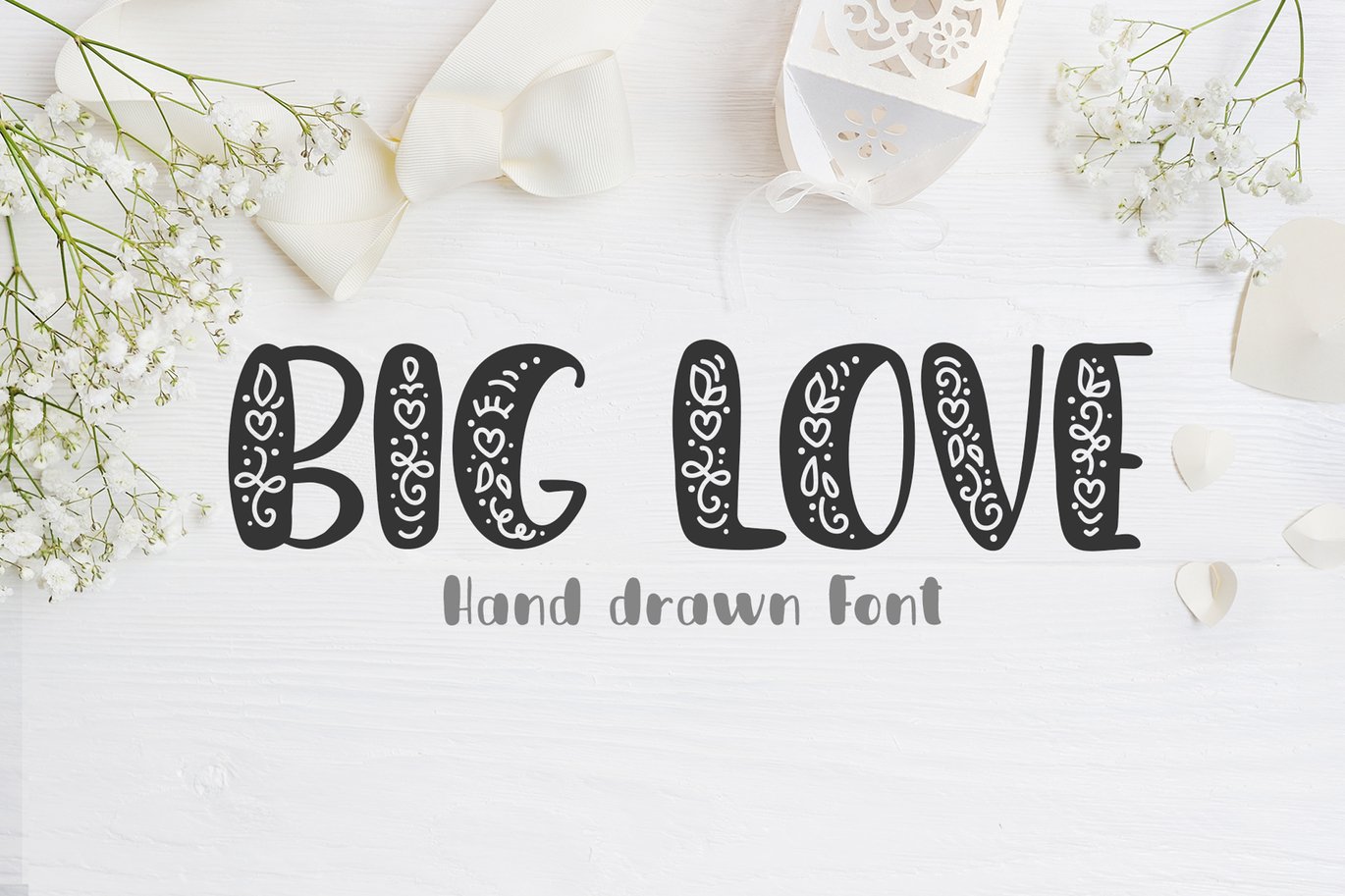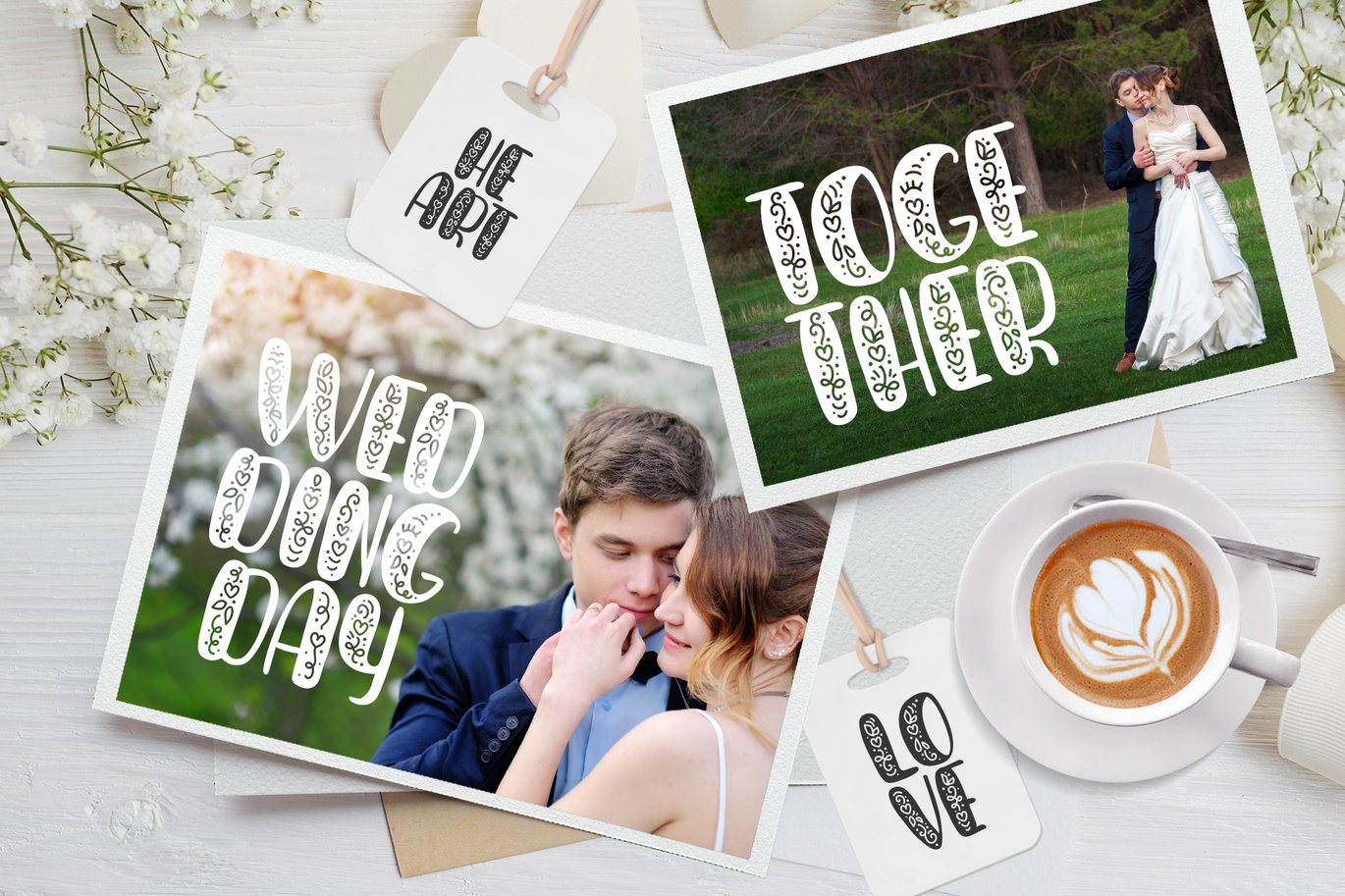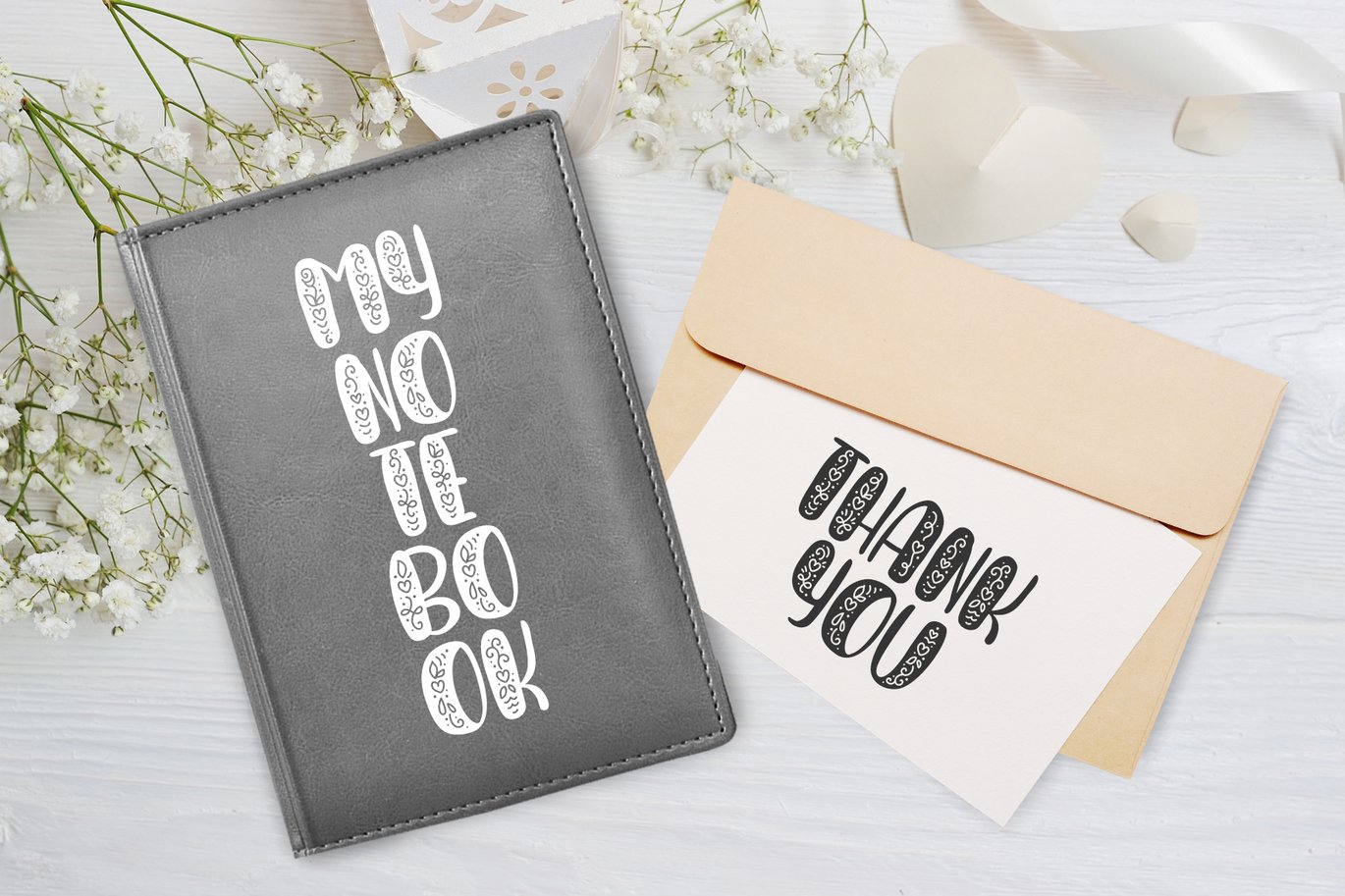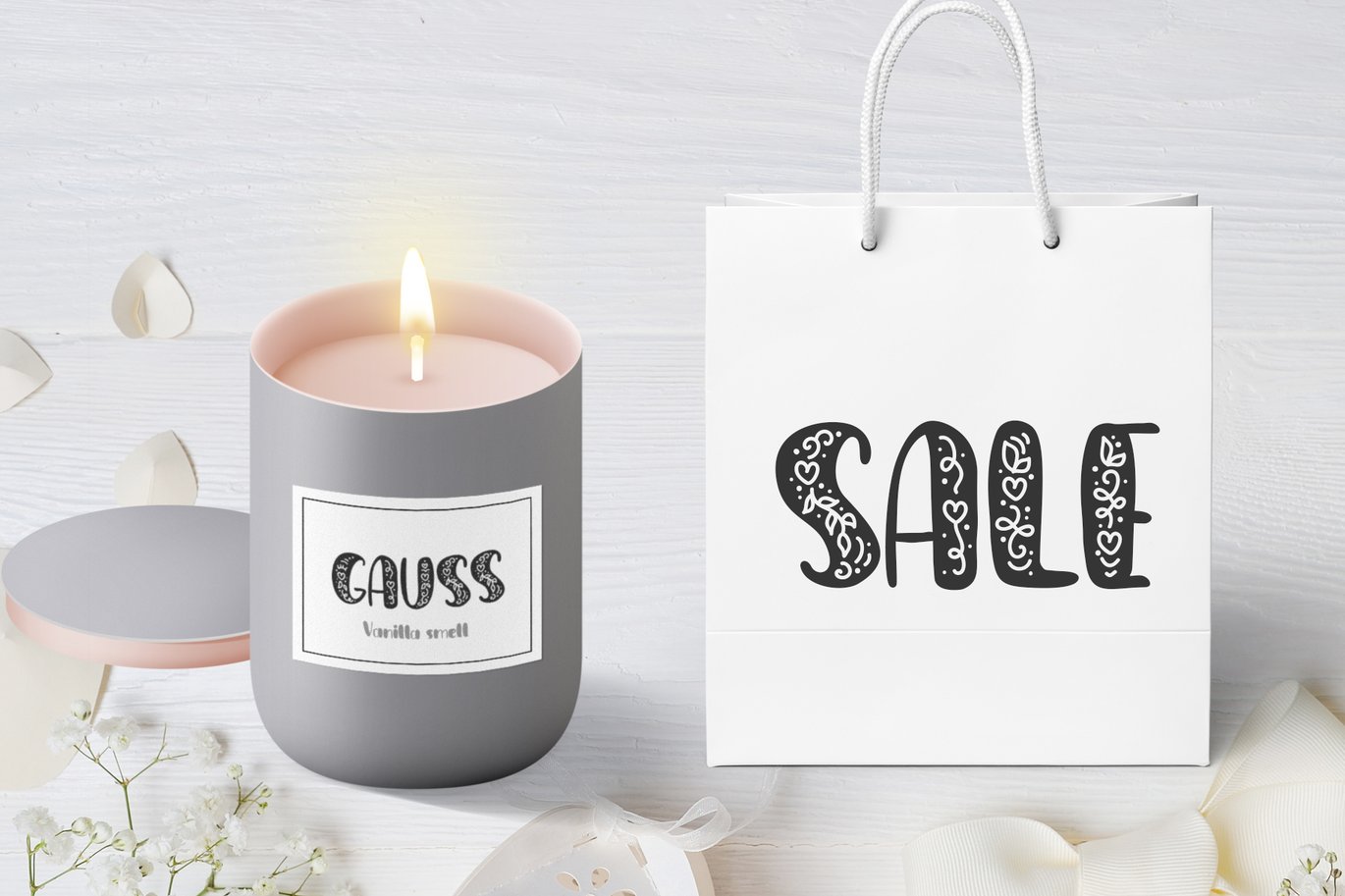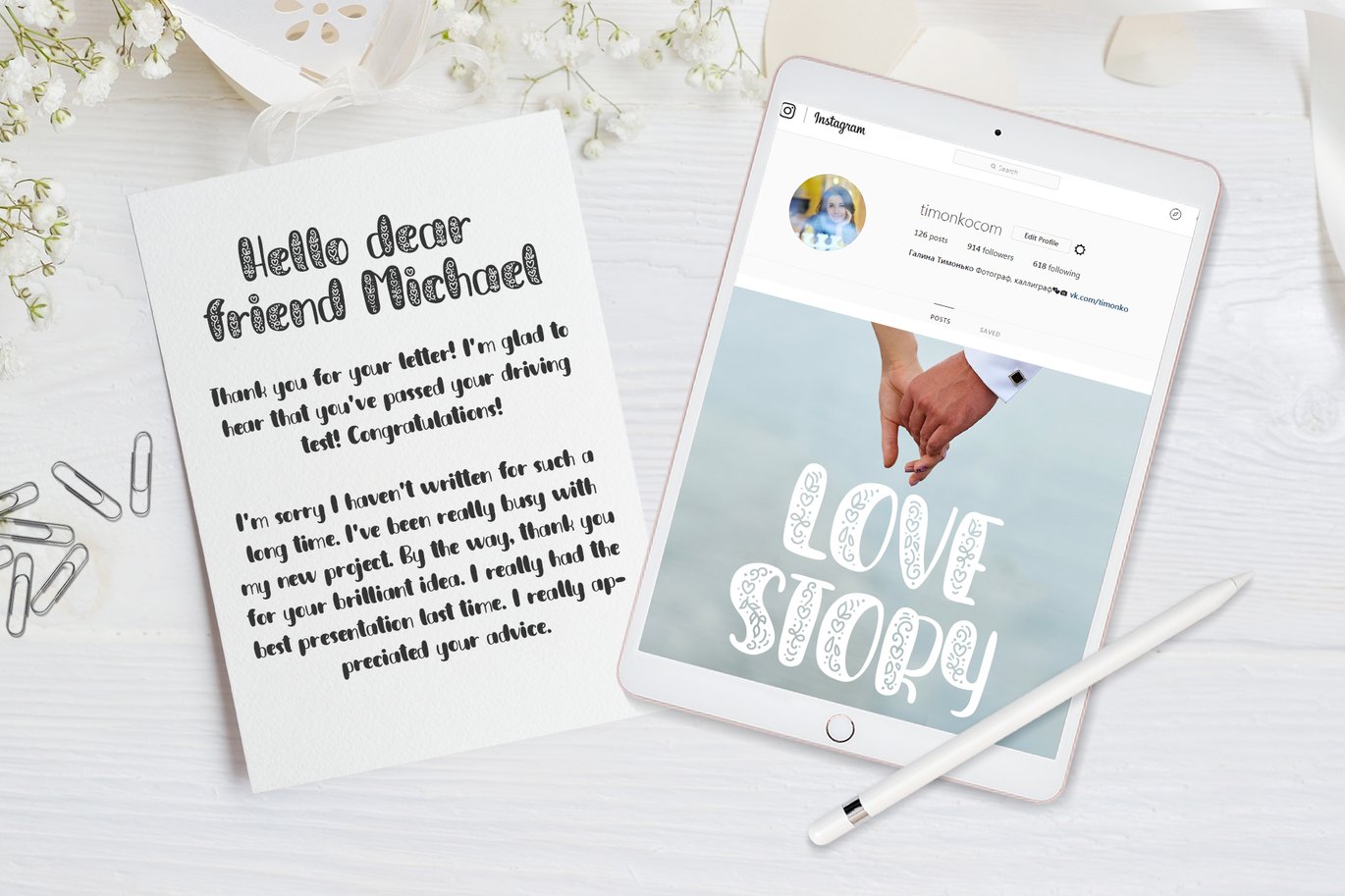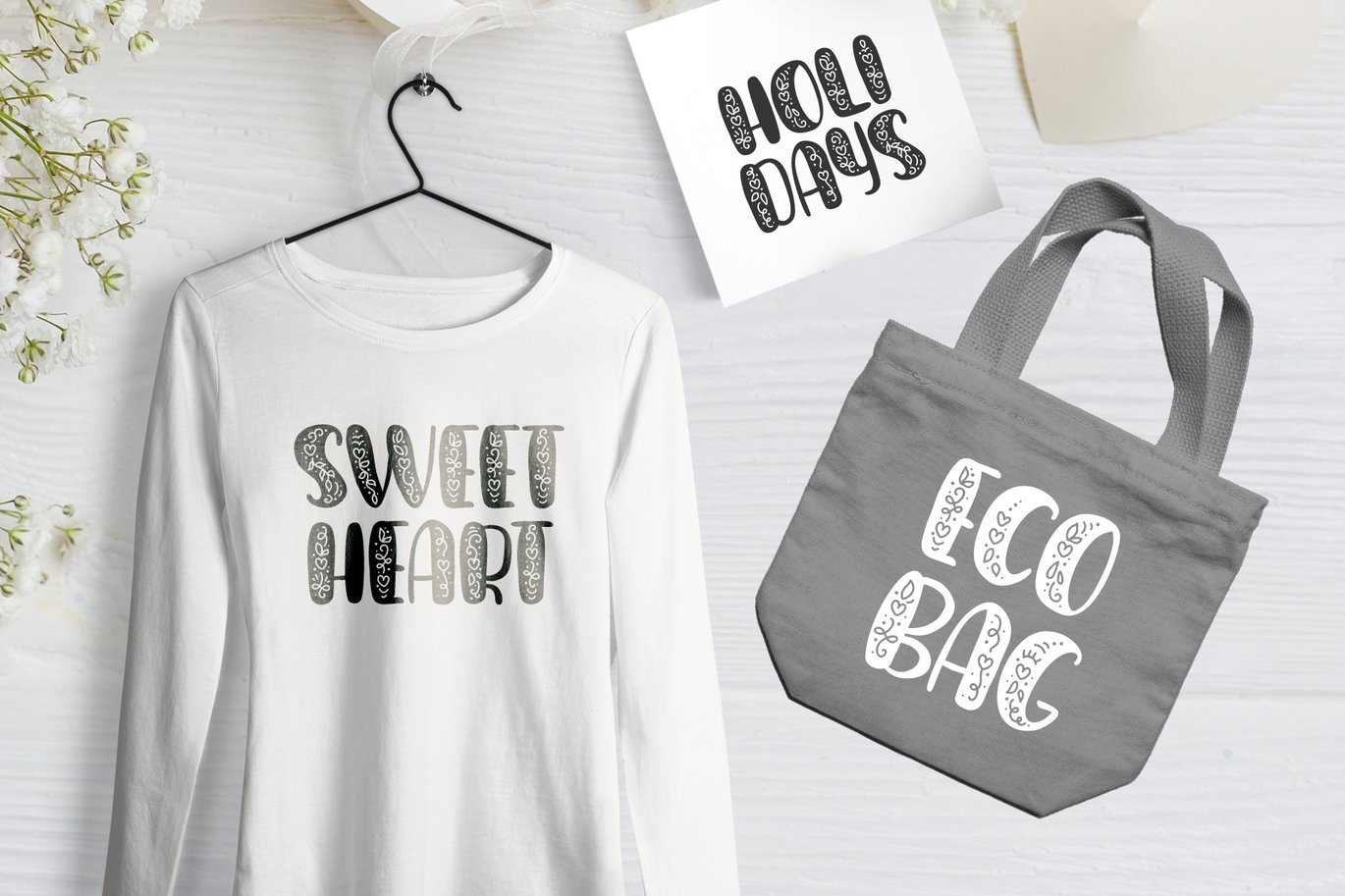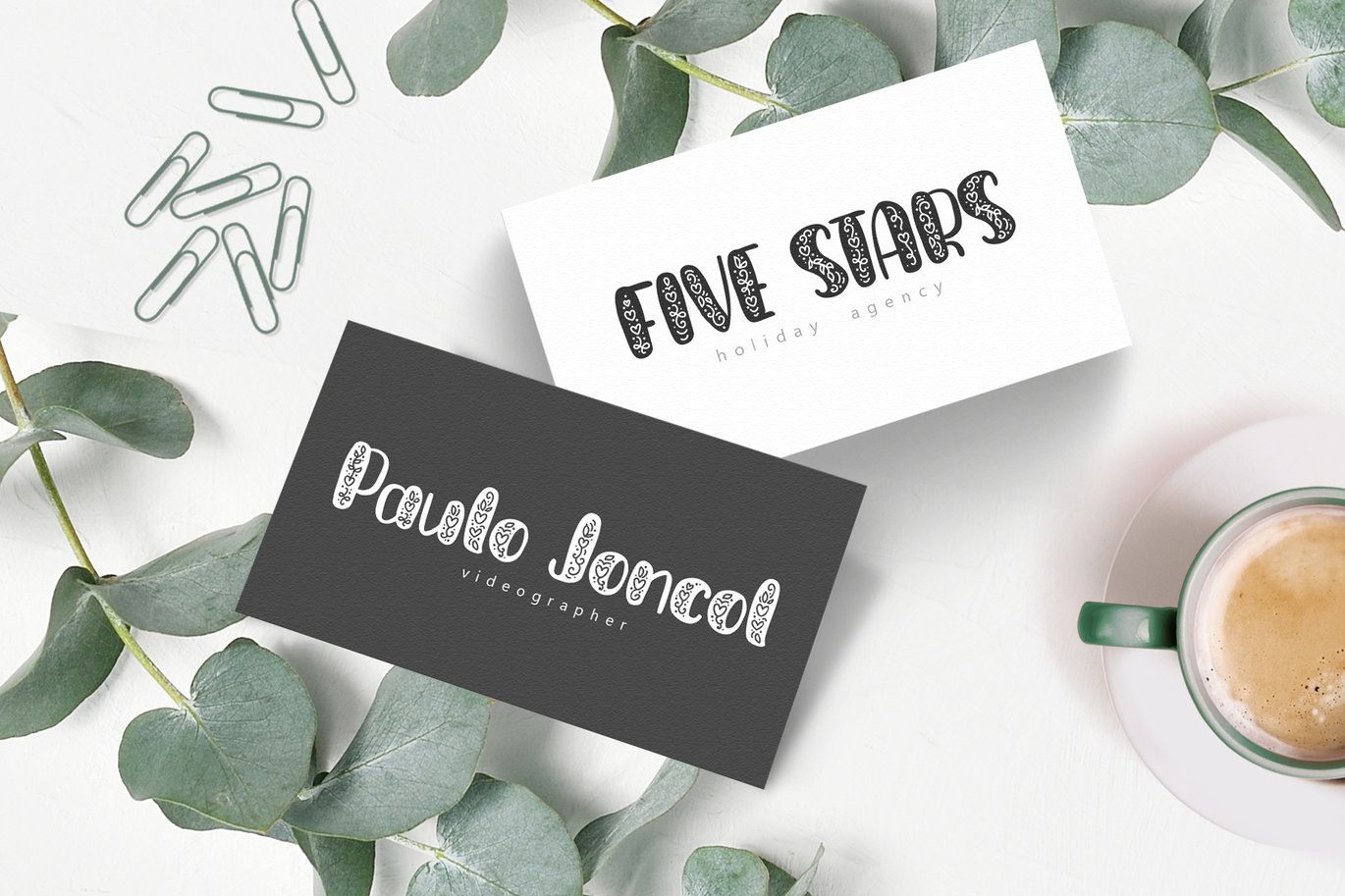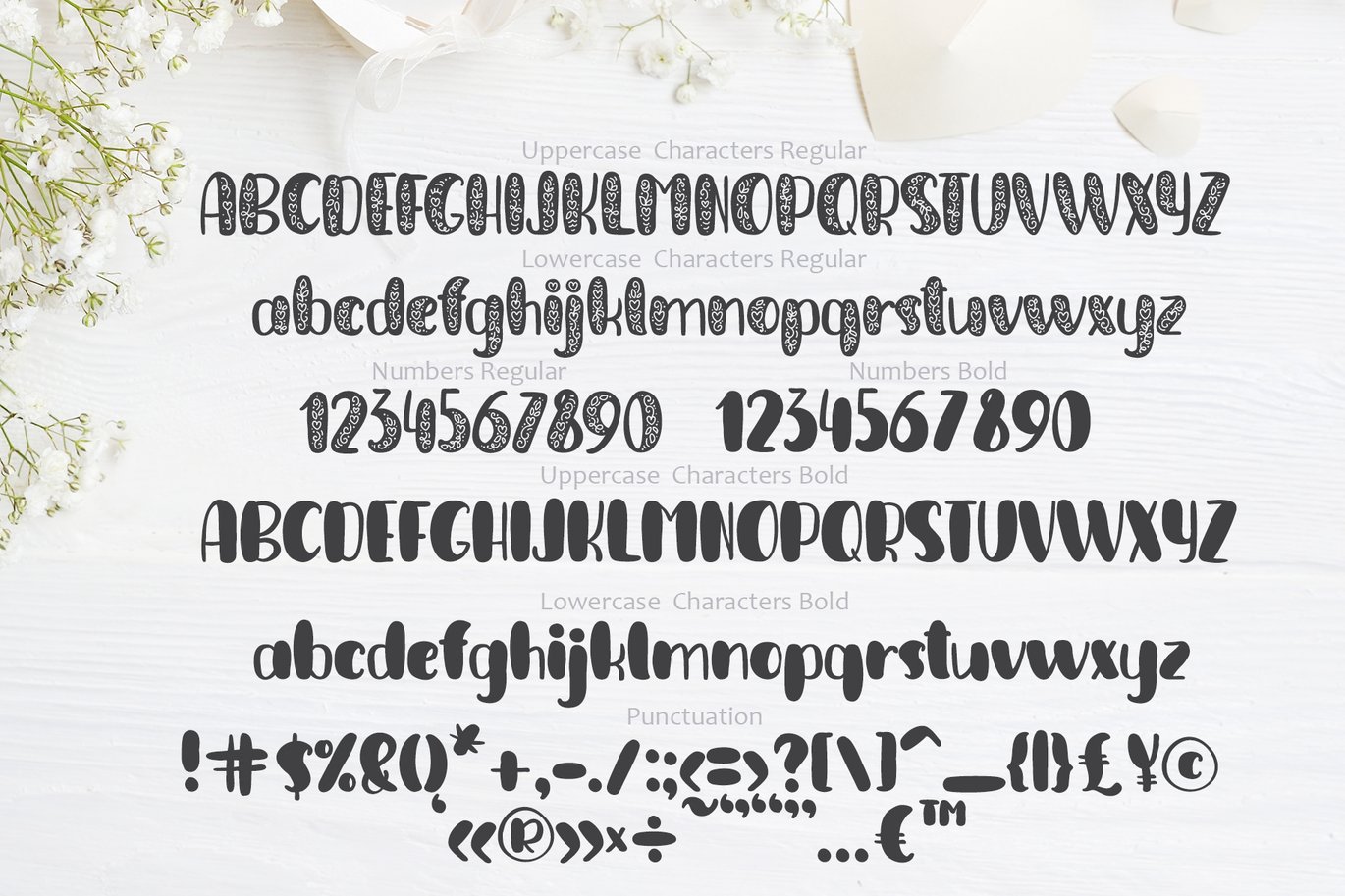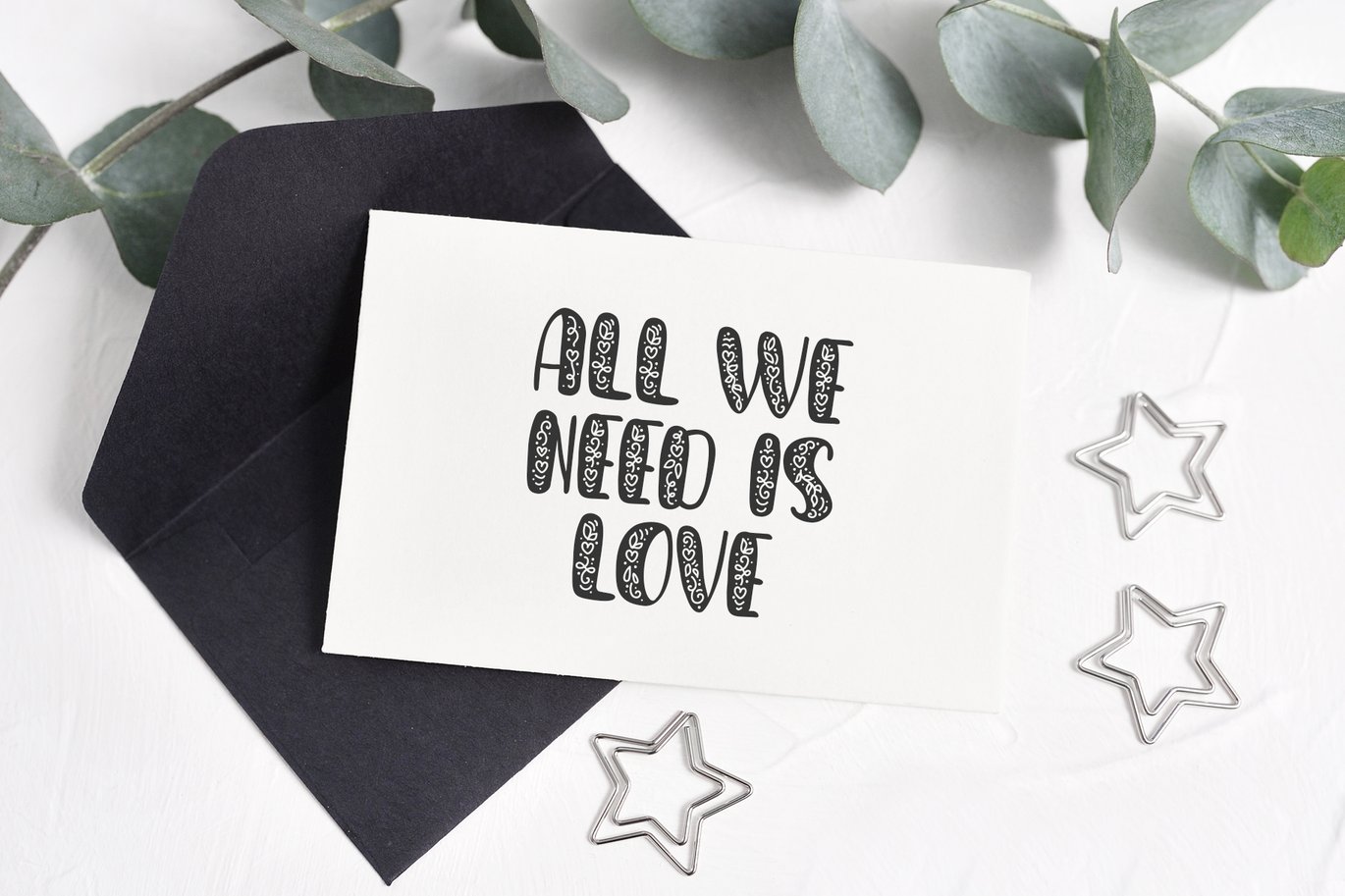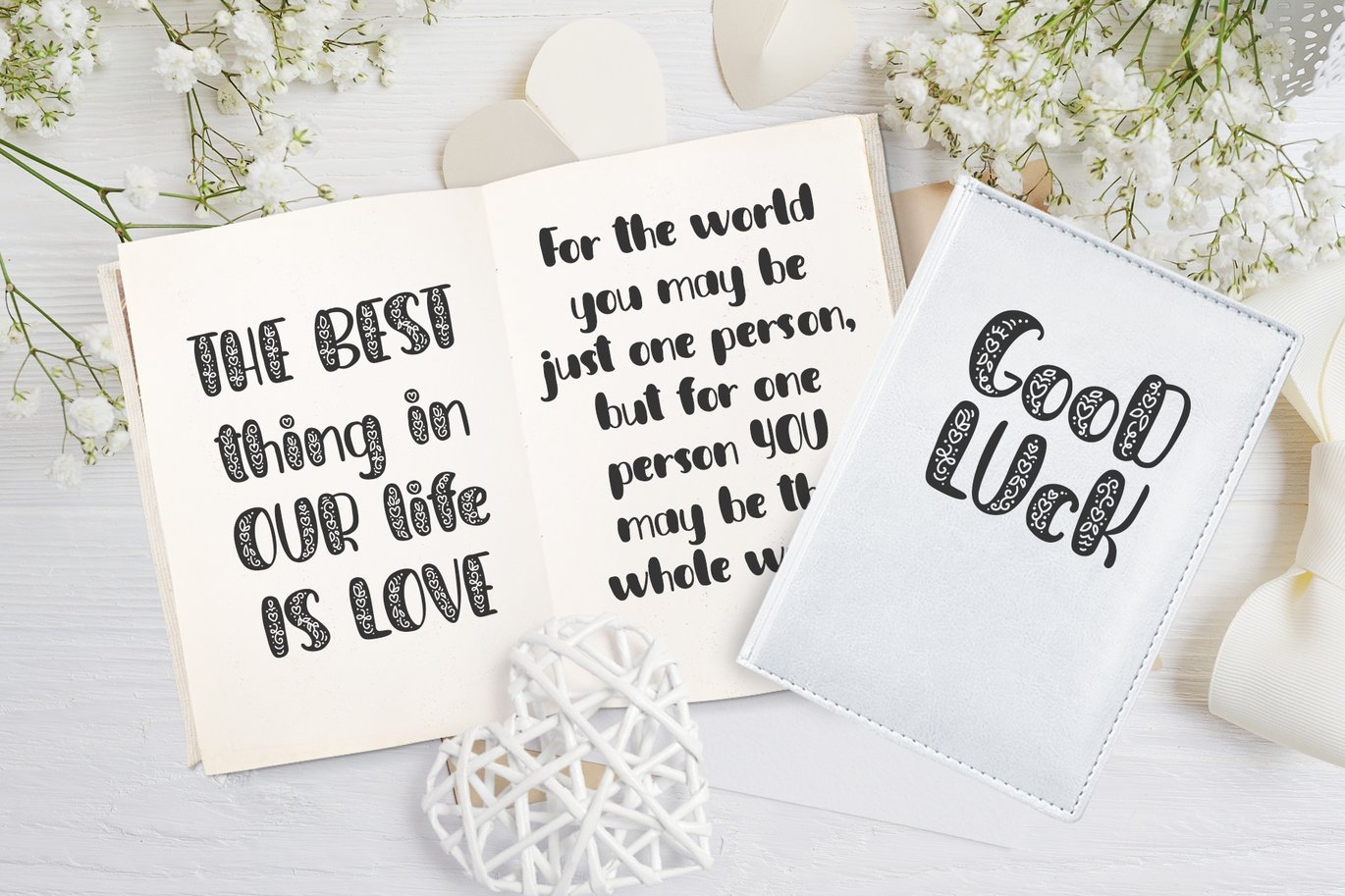
Big Love Hand Drawn Font
Big Love Hand Drawn Font includes unique letters with flourish monoline hearts and swirls insert. It’s fine for wedding or Valentines ornament greeting cards, logo, invitations, etc. Elegant ethnic calligraphic lines give romantic freshness to your handmade design.
Hand drawn scandinavian display Valentine’s Font is mapped to regular and bold keyboard keys. Regular is with ornament and bold without ornament. You don’t need any additional programs to use them. Just install font, type and go!
PERFECT FOR
Decorate your albums, wedding and holiday greeting cards (Birthday, Valentine’s Day, Mothers Day Father Day, Christmas and other holidays), logos, gift shops, nordic tag, social media, Instagram, Facebook, internet shops presentation.